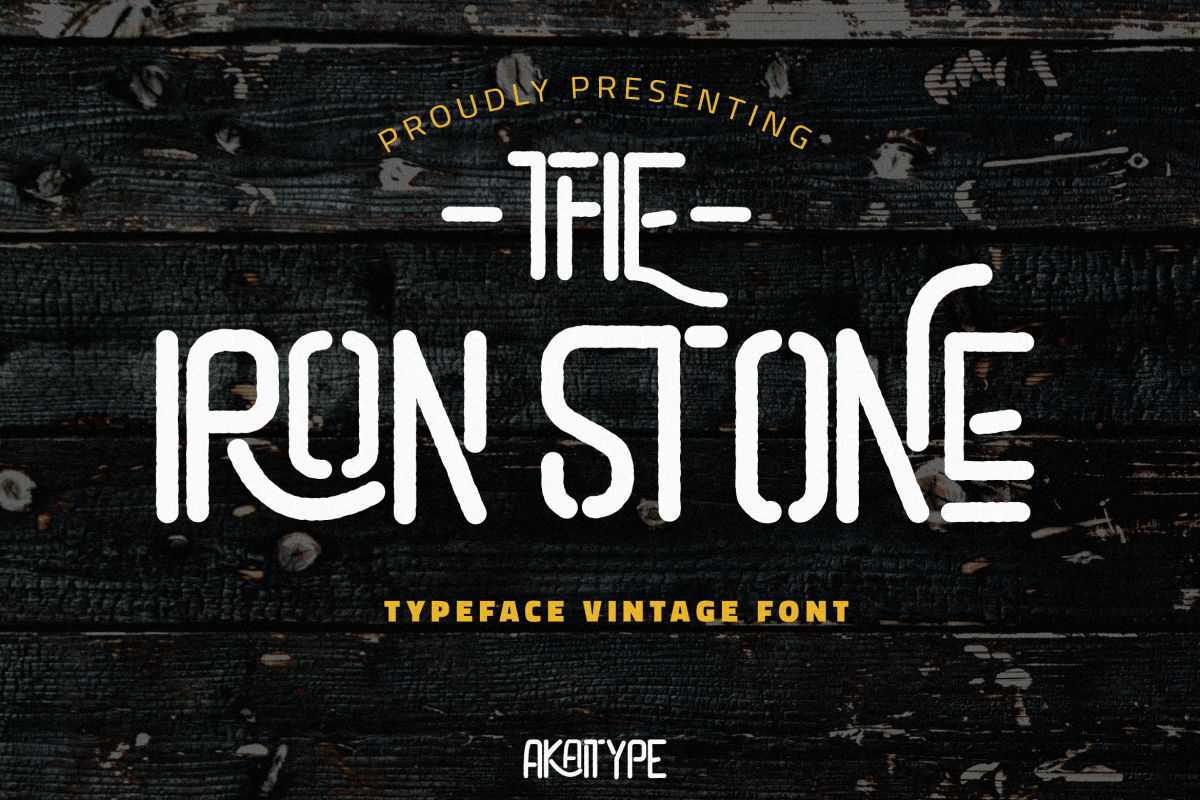
The Iron Stone is monoline sans serif font with vintage & retro style.
The Iron Stone comes with many Ligature and alternate that will make your projects design look awasome!
-stylistic Alternate